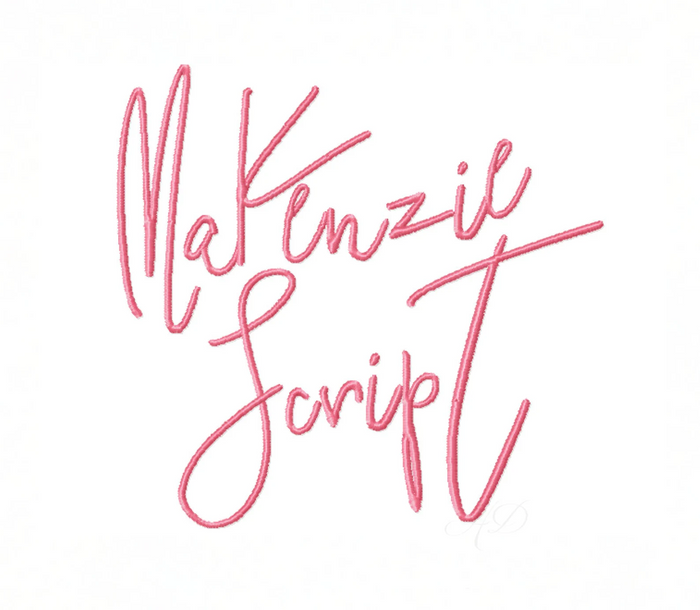
Makenzie Script Embroidery Font for Large Hoop Projects
Introducing the Makenzie Script Embroidery Font, designed for use in large hoop projects. This versatile package includes five font sizes that fit perfectly within 5x7 and 6x10 embroidery hoops. Featuring a modern, signature handwriting style, this satin stitch font delivers stunning results for all your monogramming needs.